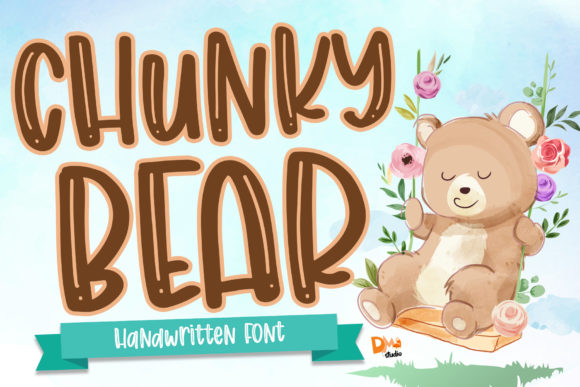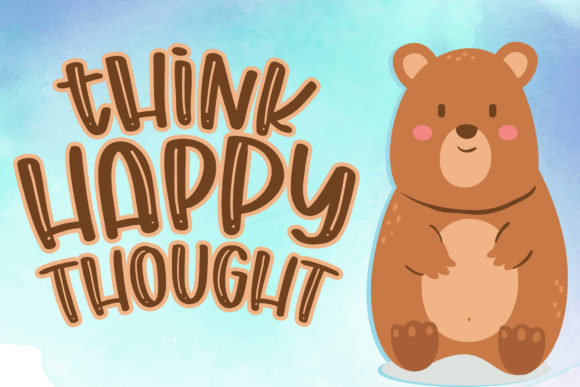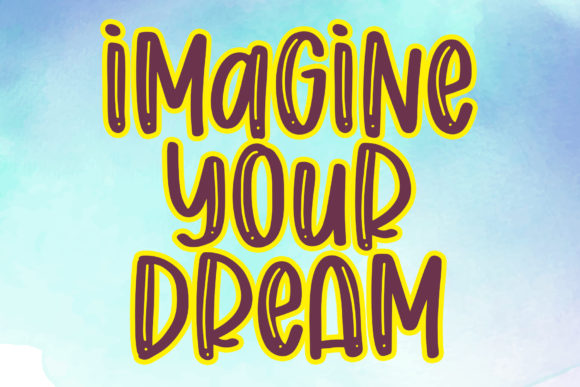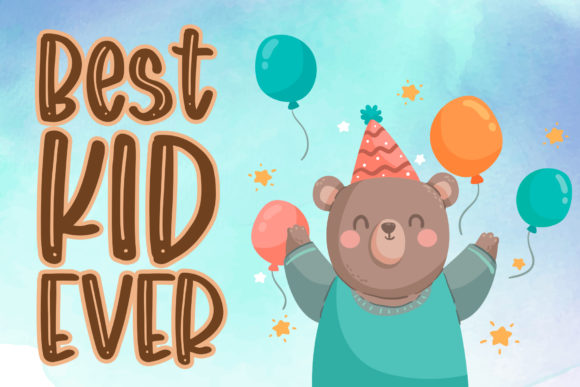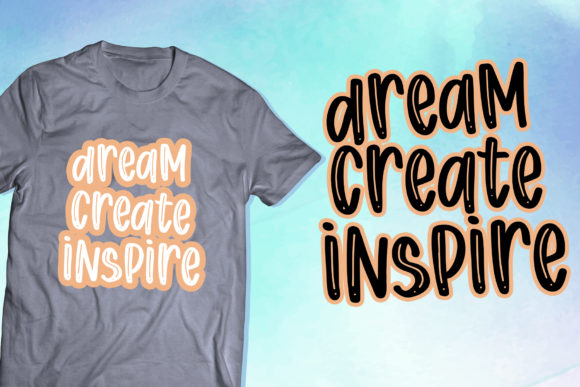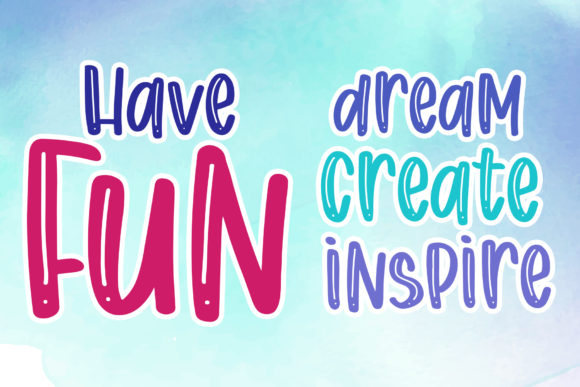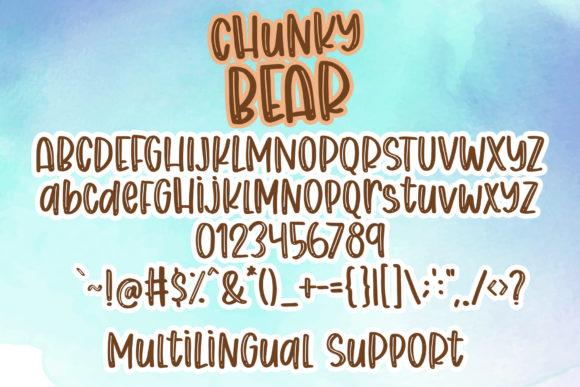
Chunky Bear Font
About Chunky Bear Font
Chunky Bear is a bubbly, cute and fun handwritten font! This enchanting font will turn any creative idea into a true standout. Get creative with its childlike playfulness, and use it to brighten up any kids and school project!